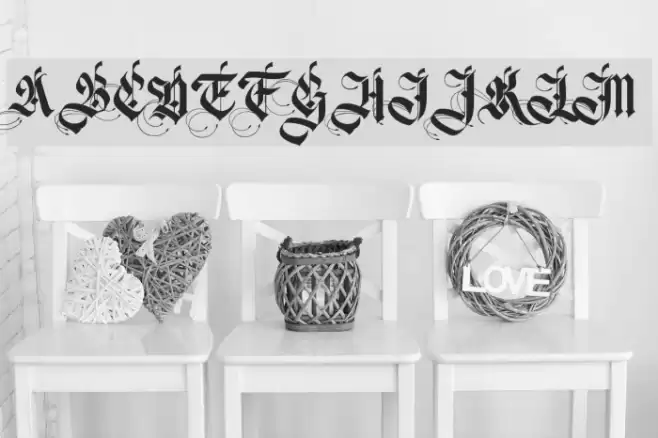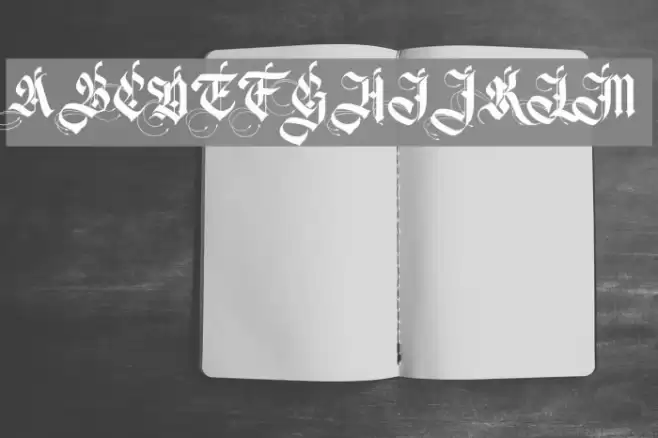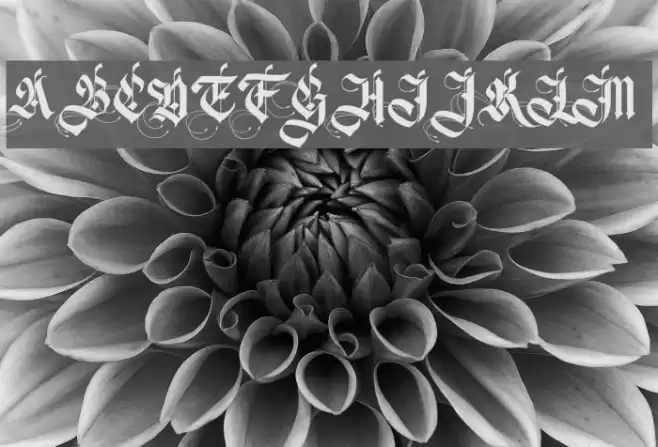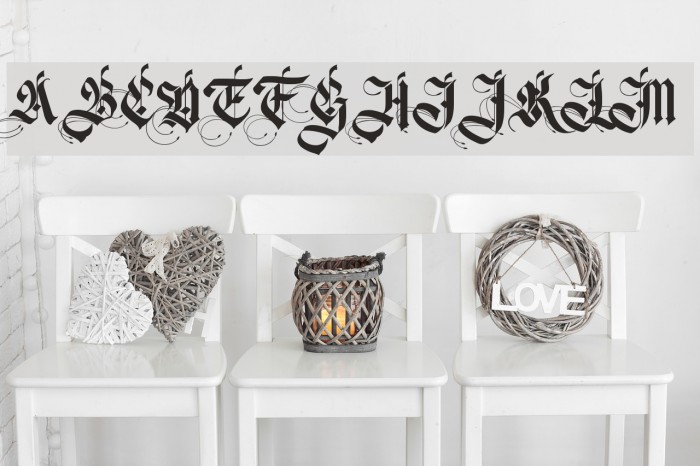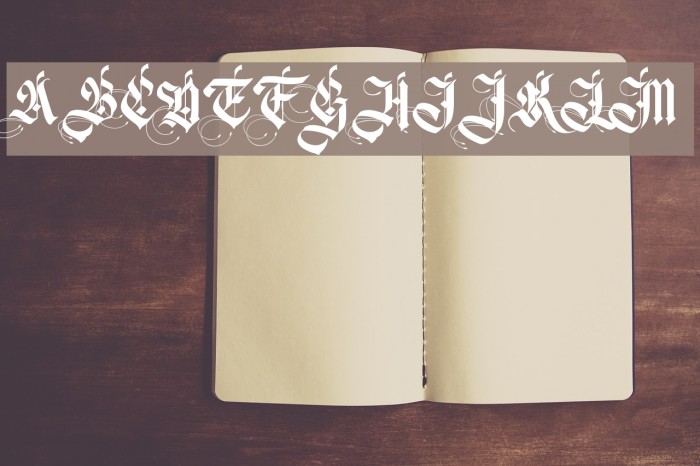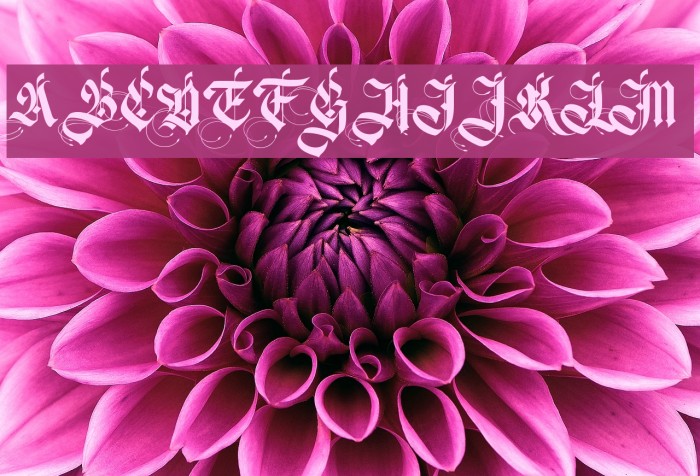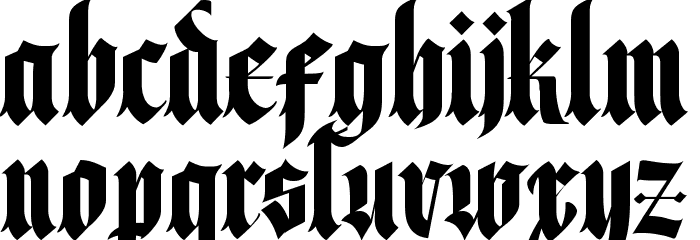
Magnificent Personal Use Font
Magnificent Personal Use Description
This font features an elaborate and intricate design, reminiscent of traditional calligraphy with a modern twist. The uppercase letters are adorned with ornate flourishes and swashes, giving them a regal and decorative appearance. The lowercase letters maintain a bold and structured form, providing a strong contrast to the embellished capitals. The overall aesthetic is both elegant and dramatic, making it suitable for projects that require a touch of sophistication and historical flair. The font's blackletter style is characterized by its sharp, angular lines and dense letterforms, which convey a sense of authority and tradition.
An ornate blackletter font with decorative flourishes and bold, angular letterforms from Uncategorized fonts.
- Proposed Projects: Ideal for wedding invitations, certificates, branding for luxury products, or any project that requires a classic and elegant touch.
- Character Spacing: Tight
- Overall Style: Vintage
- Use Case: Logos, Headlines, Decorative text